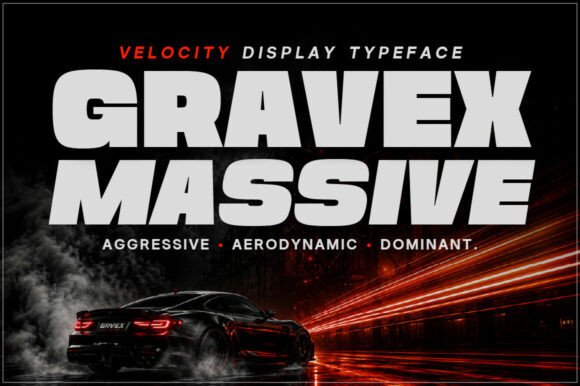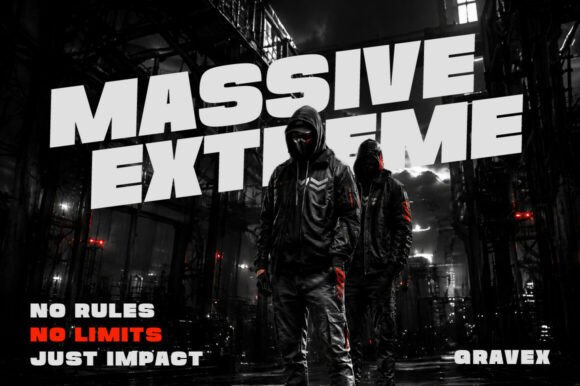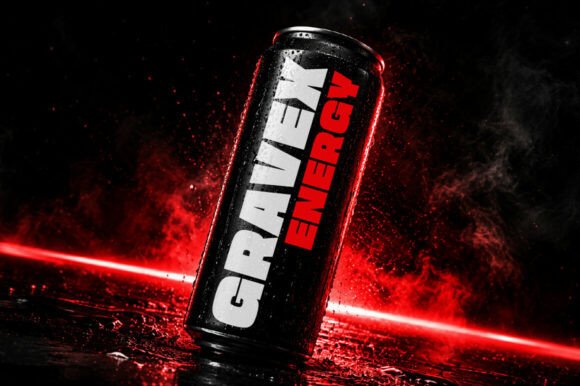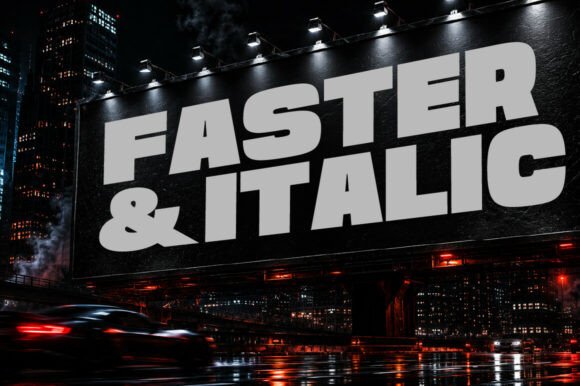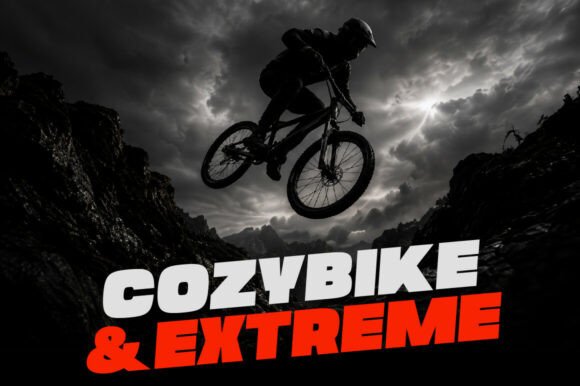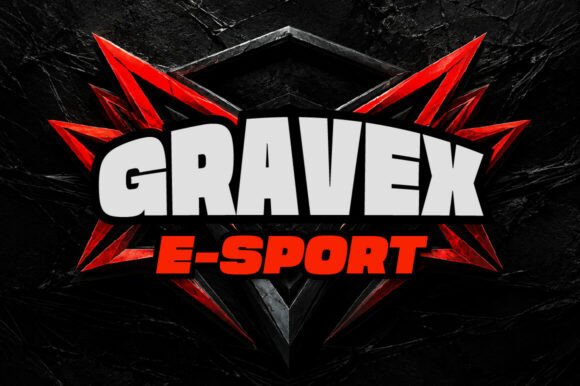
Unleash the Power of Speed: Introducing Gravex Massive Font
In the world of design, typography plays a crucial role in conveying the message and tone of a brand. For projects that require a bold, high-energy aesthetic, Gravex Massive font is the perfect solution. This bold velocity-inspired display typeface is built for speed, power, and aggressive visual impact, making it ideal for sports branding, racing visuals, esports graphics, automotive campaigns, and high-energy advertising.
Design and Features
Gravex Massive boasts a heavy geometric structure, aerodynamic italic motion, and high-performance letterforms that work together to create a dynamic and attention-grabbing typographic identity. The strong uppercase presence and dynamic slant of this typeface evoke a sense of fast-moving energy, perfect for capturing the attention of your audience. With its loud commercial aesthetic and strong readability, Gravex Massive is designed to dominate modern design landscapes.
Perfect for High-Energy Projects
Gravex Massive is specifically designed for projects that require a bold and dynamic visual identity. Some of the ideal use cases for this typeface include:
- Motorsport posters and racing graphics
- Gaming titles and esports graphics
- Gym branding and energy drink packaging
- Racing liveries and automotive campaigns
- YouTube thumbnails and social media graphics
- Apparel graphics and futuristic streetwear visuals
Key Benefits for Designers and Crafters
Gravex Massive offers several key benefits for designers and crafters, including:
- Instant attention-grabbing: The bold and dynamic design of Gravex Massive ensures that your typography instantly captures attention and conveys a sense of energy and power.
- High readability: Despite its bold design, Gravex Massive maintains strong readability, making it perfect for use in a variety of applications, from logos and headlines to merchandise and digital campaigns.
- Modern industrial character: Gravex Massive has a distinctly modern and industrial feel, making it perfect for brands that want to convey a sense of cutting-edge technology and high-performance capability.
- Versatility: This typeface is versatile and can be used in a wide range of applications, from print materials to digital campaigns.
Why Choose Gravex Massive?
In a world where typography plays a crucial role in brand identity, Gravex Massive offers a unique combination of style, functionality, and versatility. Whether you’re a designer, crafter, or brand owner, this typeface is perfect for anyone who wants to create a bold and dynamic visual identity that captures attention and conveys energy and power.
Gravex Massive is a carefully crafted typeface that is designed to work seamlessly across a range of platforms and applications. Some of the key technical specifications include:
- Character set: This typeface features a comprehensive character set, including uppercase and lowercase letters, numerals, and a range of punctuation and special characters.
- Language support: Gravex Massive supports a wide range of languages, making it perfect for use in international design projects.
In conclusion, Gravex Massive is a bold and dynamic typeface that is perfect for designers, crafters, and brand owners who want to create a high-energy visual identity that captures attention and conveys power and speed. With its heavy geometric structure, aerodynamic italic motion, and high-performance letterforms, this typeface is designed to dominate modern design landscapes. Whether you’re working on a sports branding project, racing graphics, or high-energy advertising campaign, Gravex Massive is the perfect choice.